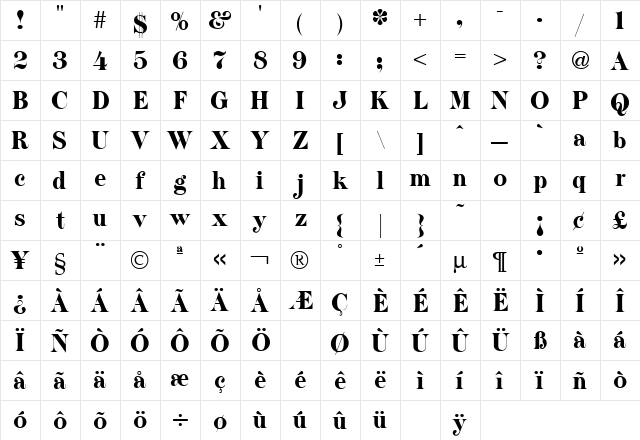
Milano Regular
Design Context for Milano Typeface
Milano is a composed and adaptable typeface that performs quietly and consistently across a wide range of design contexts.